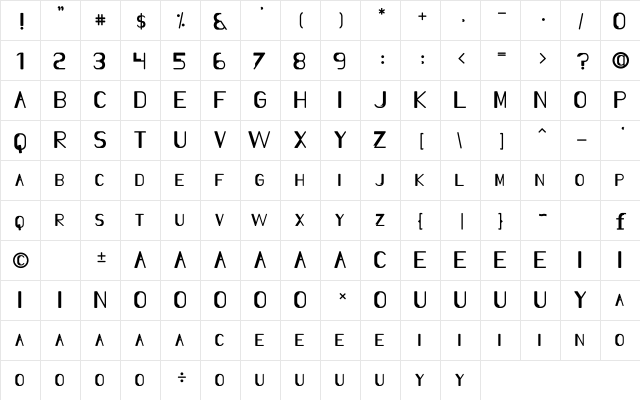
Slang Outfit Regular
| Foundry | Edric Studio |
| Designer | Renata & Sarah Suci P |
Design Context for Slang Outfit Typeface
Slang Outfit offers clean, dependable letterforms without strong stylistic allegiance, making it a practical choice for designers who need flexibility.
Pro Tip: Pair Slang Outfit with a font of contrasting weight or personality to build a more expressive typographic hierarchy.